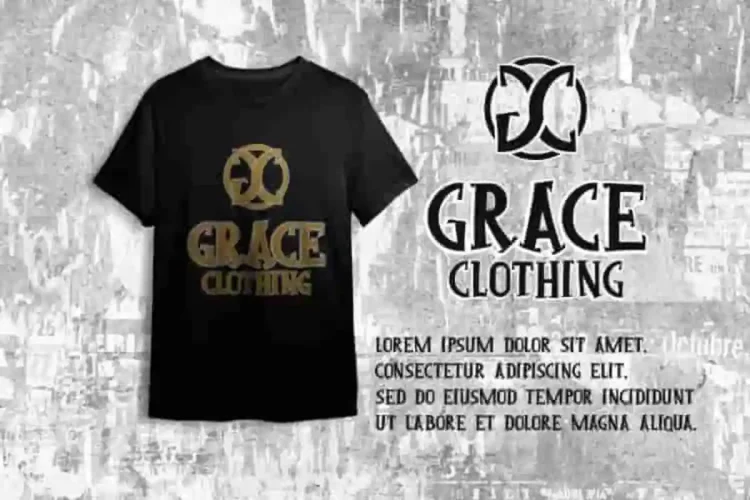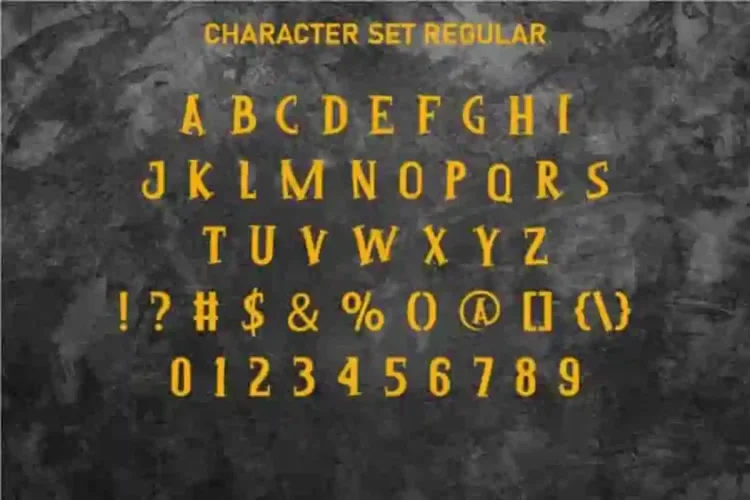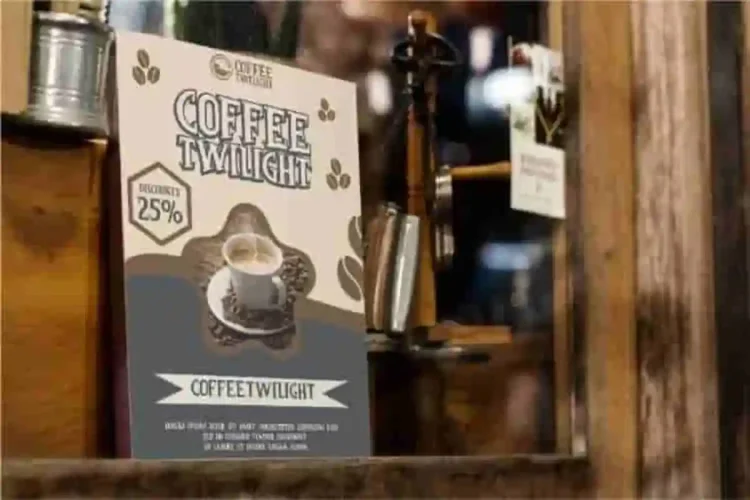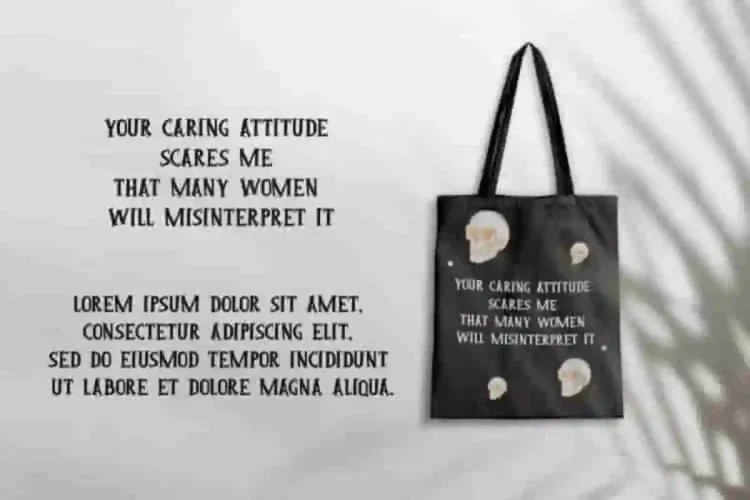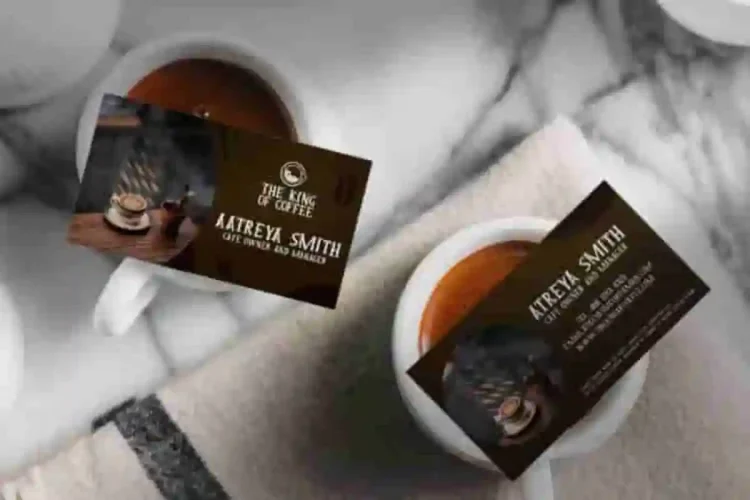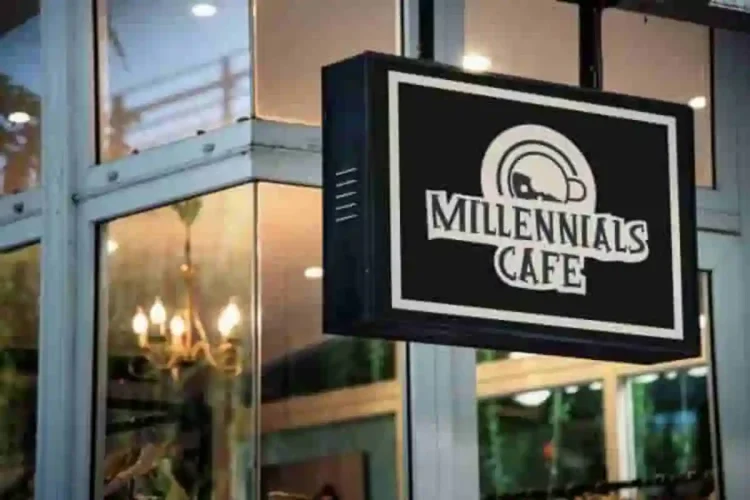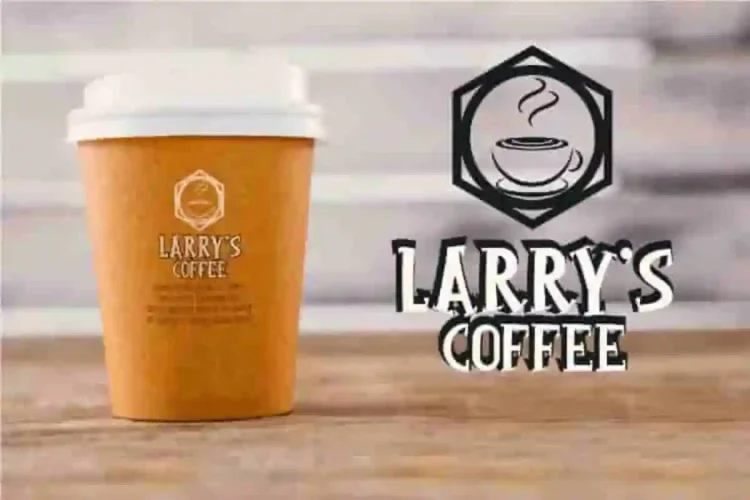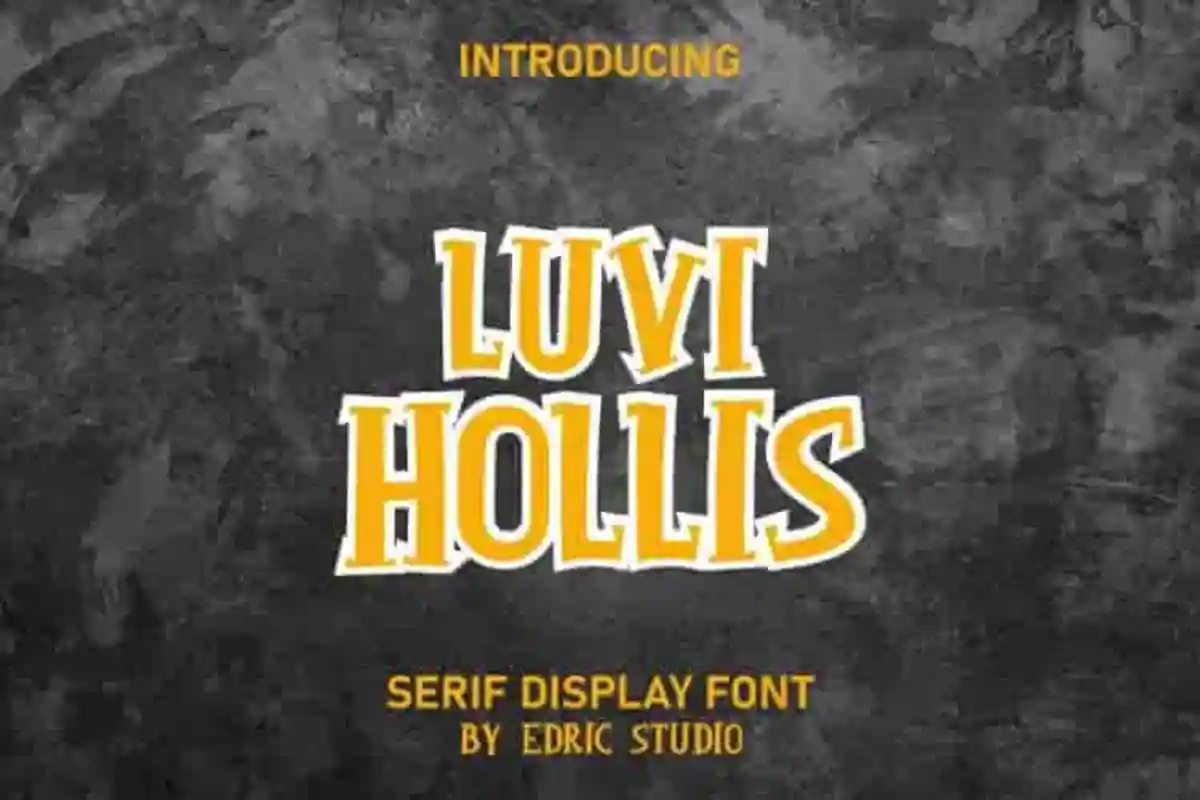
Luvi Hollis Modern Display Font is an unique serif display that will give an ancient century battle look inspired by some movies and and heroes. This font will look great used in banner, billboard, brand identity, brochure, business card, café, company sign, custom bag, flyer, headline, label, logo design, movie, packaging, poster, product design, sticker, t-shirt print, typography, and others.
Luvi Hollis Modern Display Font comes with all capital letter characters, numerals, a large range of punctuation, and symbol. This typeface has a classic, fight, gripping, modern, mysterious, and old style. It’s will be suitable for industries like architect, café, entertainment, events, fashion, interior designers, martial arts, movie, restaurant.